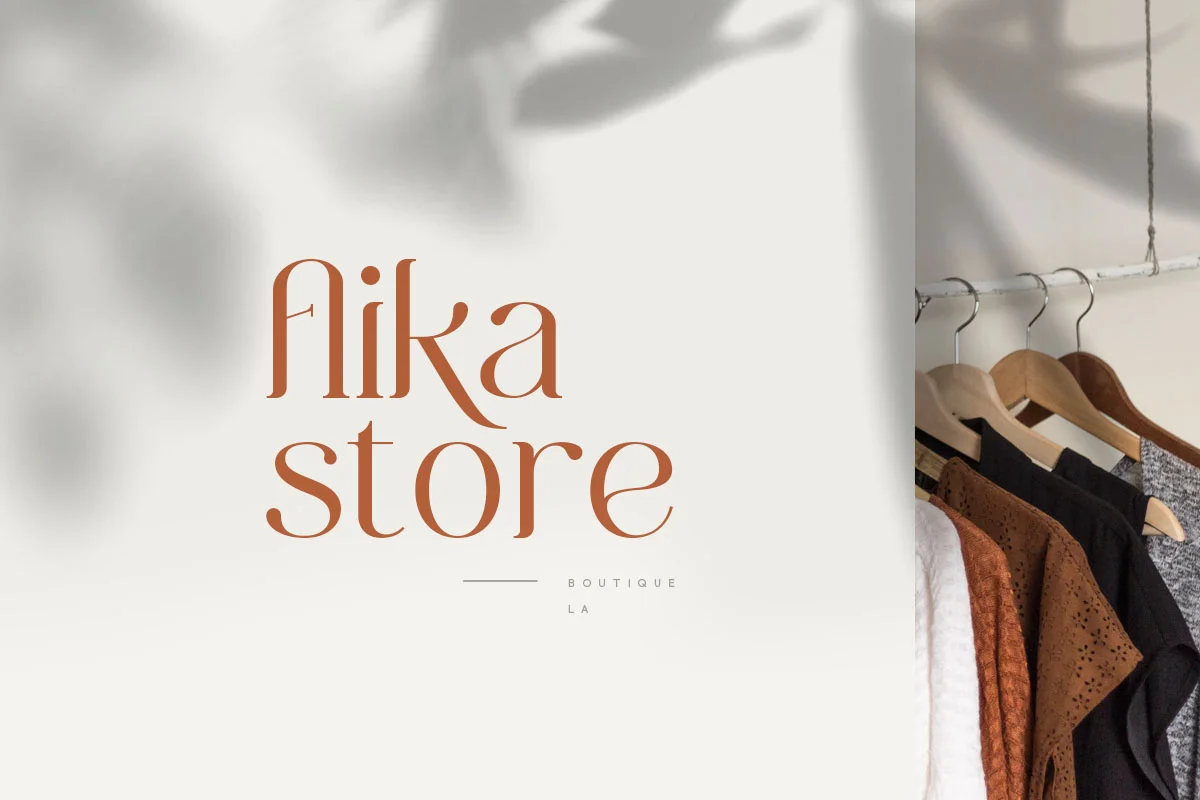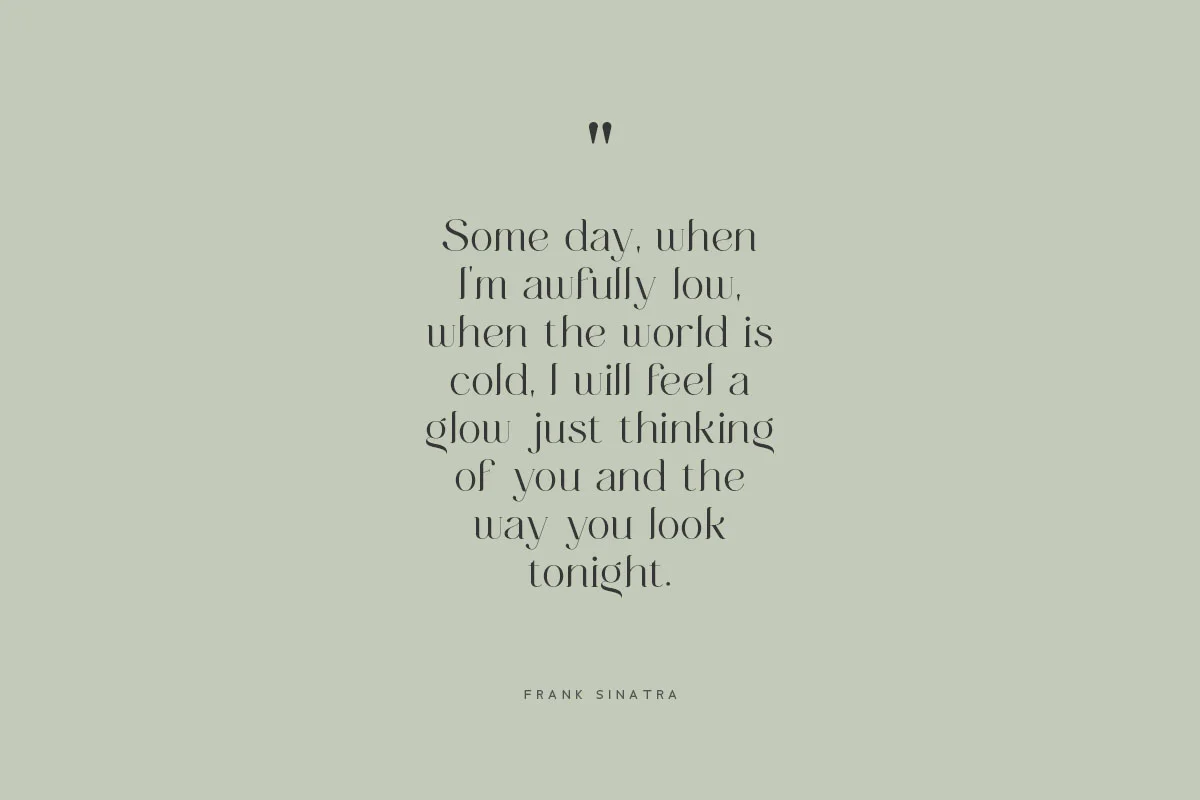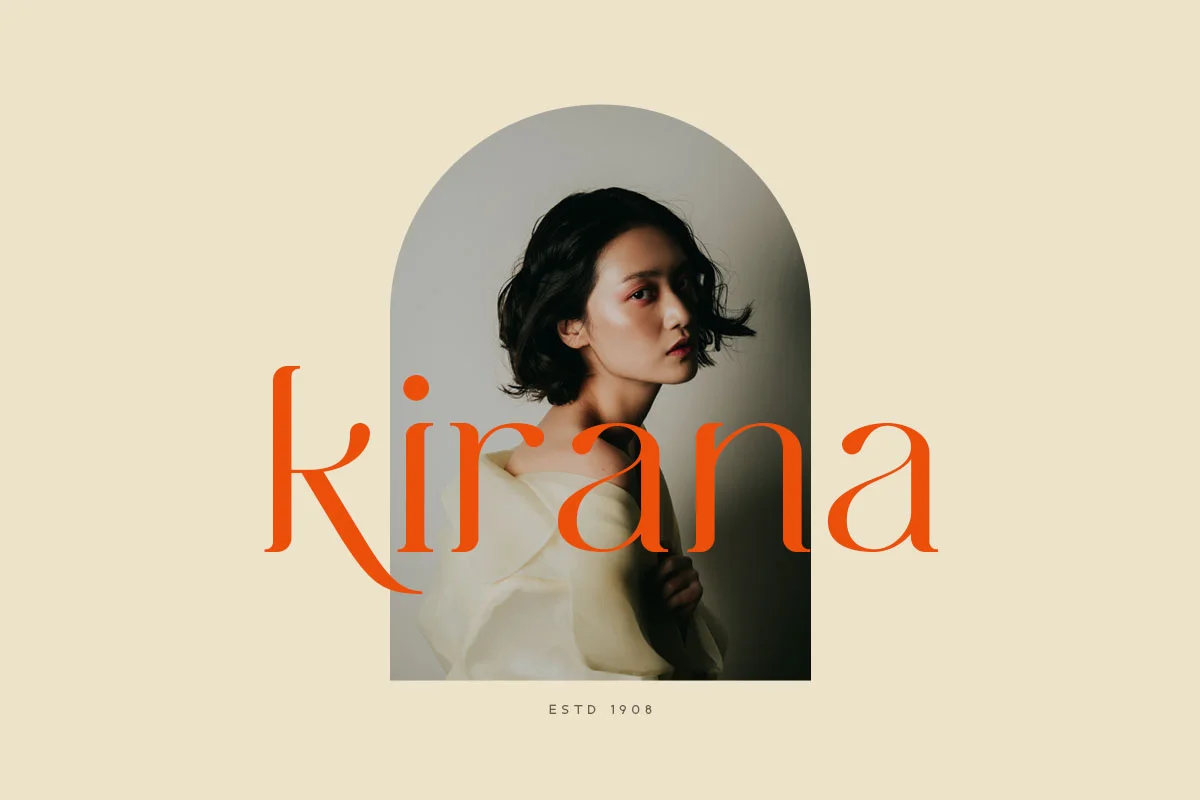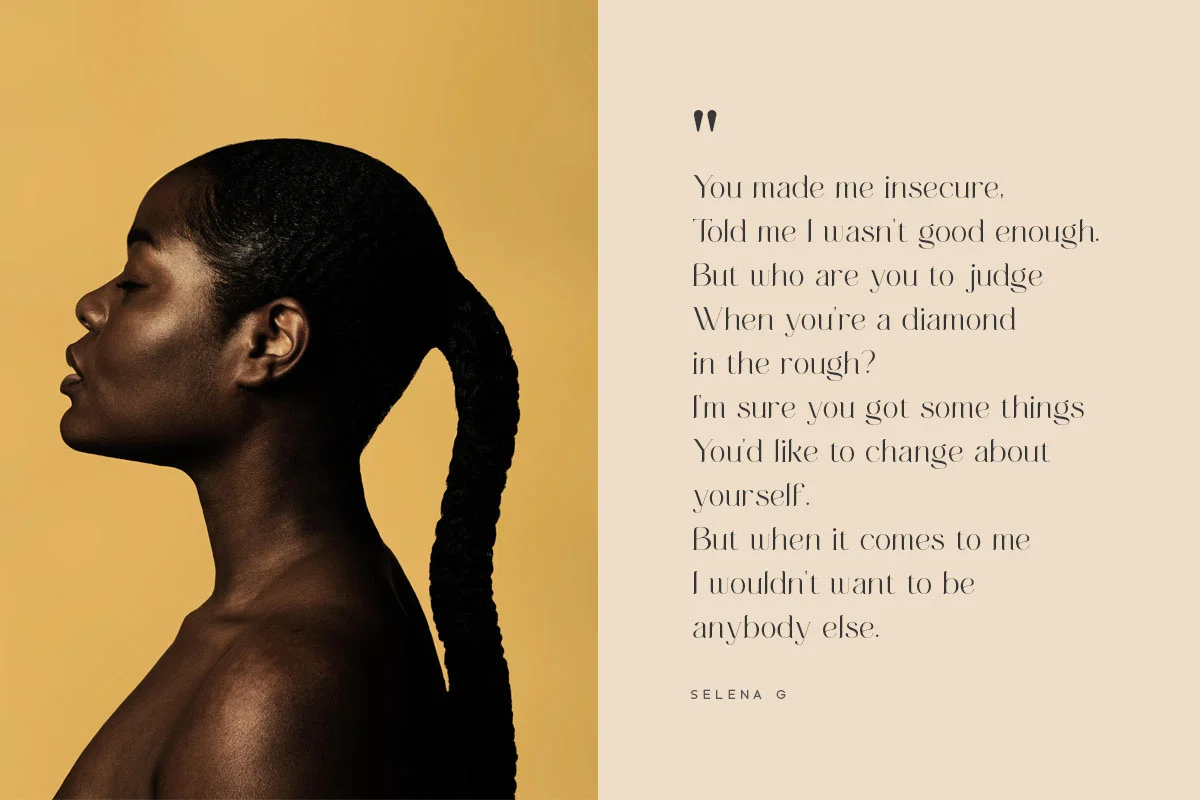
About the Fugi Font
Introducing Fugi Font: Fugi is a modern fashion serif font, every single letter has been carefully crafted to make your text looks unique.
This font including beautiful alternate glyph. You can access the alternate glyph via Font Book (Mac user) or Windows Character Map (Windows user), I’ve been put the linked tutorial inside the zip file.
Foreign languages support: ÀÁÂÃÄÅÆÇÈÉÊËÌÍÎÏÐÑÒÓÔÕÖØÙÚÛÜÝßàáâãäåæçèéêëìíîïðñòóôõöøùúûüýÿ